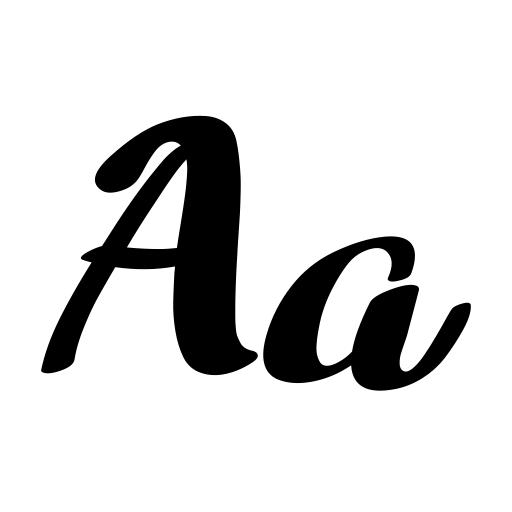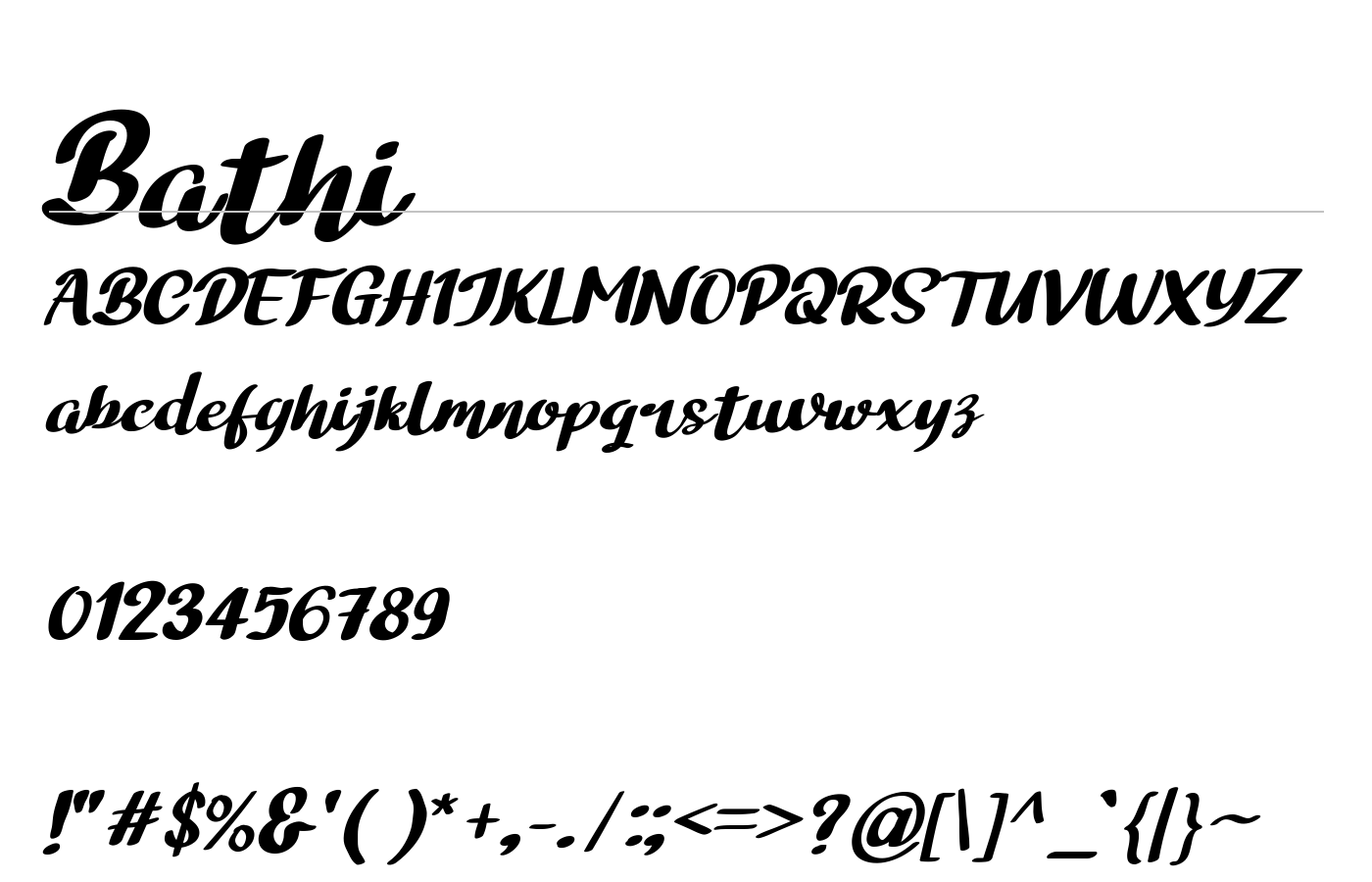
Bathi is a bold, script-style font with a smooth, flowing design that conveys a lively and friendly personality. Its slightly condensed letterforms and moderate contrast give it a dynamic yet readable appearance, making it ideal for invitations, branding, and headlines where a touch of elegance and warmth is desired. This font works well for fashion, lifestyle, and creative projects looking to combine sophistication with approachability.
Bathi Font